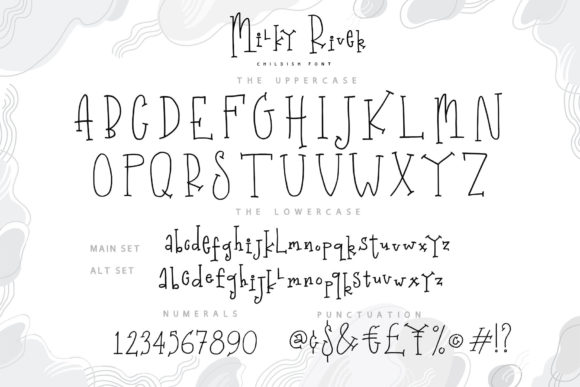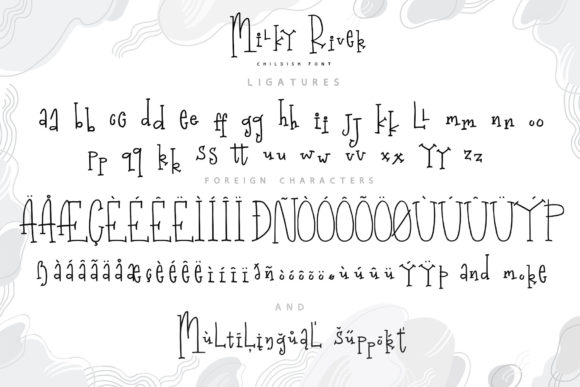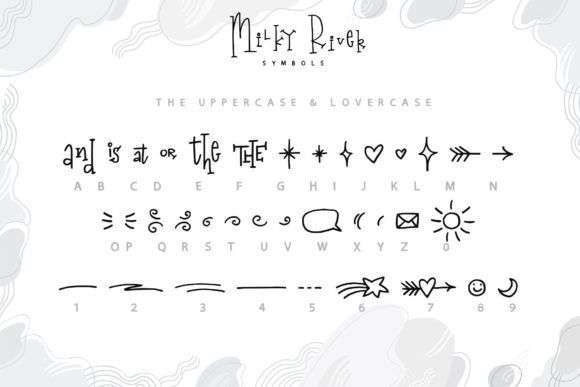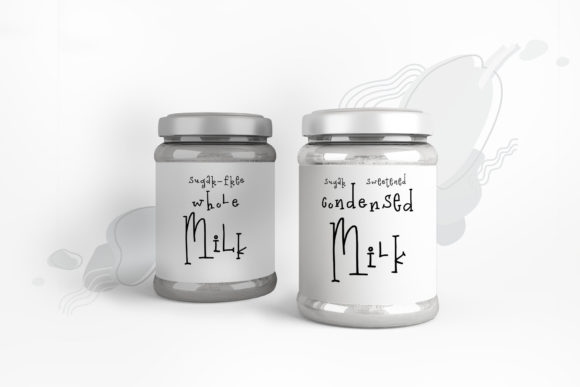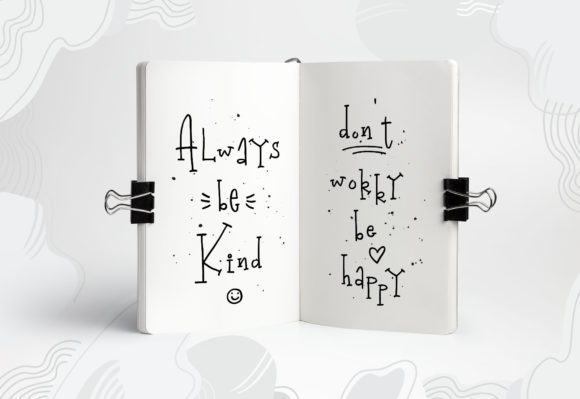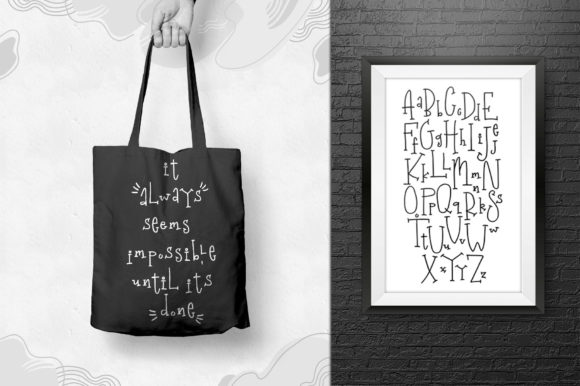
Introduction to Milky River Font Font
Milky River is a playful and fun font with an adorable twist.
It will put a unique spin on any design project .
Key Features of Milky River Font Font